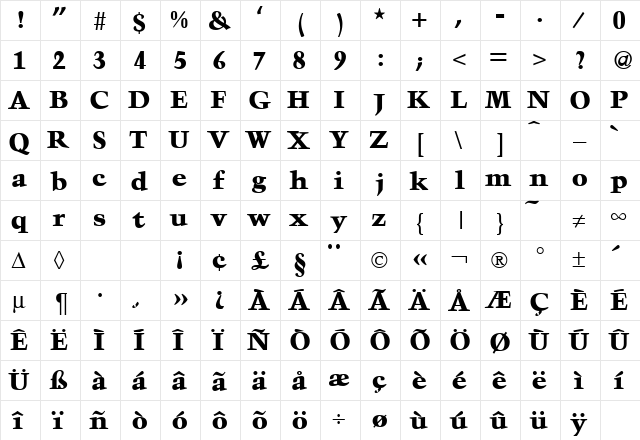
TroubadourExtrabold Regular
Design Context for TroubadourExtrabold Typeface
TroubadourExtrabold is a composed and adaptable typeface that performs quietly and consistently across a wide range of design contexts. Its bold stroke weight gives it real presence on the page.